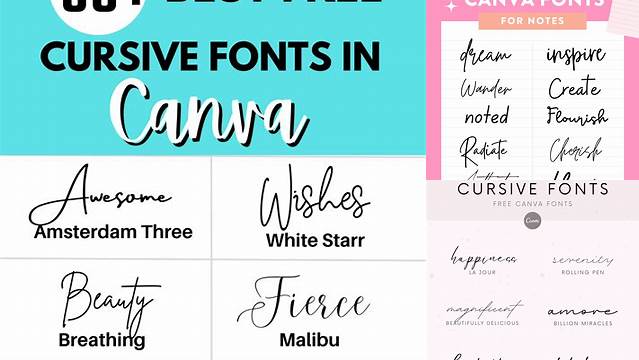
Top Free Cursive Fonts For Canva: Your Ultimate Guide
Hey guys! Ever wondered how to make your Canva designs pop with some seriously stylish fonts? Well, you're in luck! Today, we're diving headfirst into the world of best Canva cursive fonts free. Whether you're a seasoned designer or just starting out, finding the perfect cursive font can elevate your projects from meh to magnificent. We'll explore the cream of the crop, the fonts that'll make your designs sing, and most importantly, won't cost you a penny. So, buckle up, grab your virtual pens, and let's get creative! Finding the right font can be a game-changer. It can add personality, convey a specific mood, or simply make your text more readable. Cursive fonts, with their elegant and flowing style, are particularly effective at creating a sense of sophistication, romance, or even playfulness. And the best part? Canva has a fantastic selection of free cursive fonts just waiting to be discovered. This guide is your ticket to unlocking those hidden gems and mastering the art of typography in Canva. Get ready to transform your designs with some seriously stunning fonts!
The Allure of Cursive Fonts in Canva Designs
Alright, let's talk about why cursive fonts are so darn appealing, especially in the context of Canva designs. The charm of these fonts lies in their unique ability to add a personal touch and a sense of artistry that's hard to replicate with more basic typefaces. Best Canva cursive fonts free offer a level of visual interest that instantly elevates any project. Think about it: a simple invitation, a social media graphic, or even a presentation slide can be transformed with the right cursive font. It’s like adding a sprinkle of magic to your designs! Cursive fonts inherently evoke a feeling of elegance, sophistication, and sometimes even a touch of whimsy. They can be used to create a romantic vibe, add a sense of luxury, or simply make your text feel more handwritten and authentic. The flowing lines and interconnected letterforms of cursive fonts draw the eye and create a visual rhythm that's both pleasing and engaging. For designers of all levels, this is a fantastic way to add personality. Using cursive fonts effectively involves considering the overall tone. A delicate script might be perfect for a wedding invitation, while a bolder, more modern cursive could work wonders on a poster or a website banner. The key is to choose a font that complements your design's purpose and target audience. A well-chosen cursive font can transform a basic design into a work of art. In Canva, you can easily experiment with different fonts and styles to find the perfect match for your project. Don’t be afraid to play around with it! Embrace the variety and discover the power that these fonts hold. Selecting the best font is an important part of creating your design.
Why Cursive Fonts are Perfect for Branding
When it comes to branding, using best Canva cursive fonts free can be an absolute game-changer. These fonts have an innate ability to create a distinct brand identity. They add a level of personality and memorability that can set you apart from the competition. A well-chosen cursive font can communicate your brand's values, personality, and aesthetic preferences. For instance, a graceful, flowing script might be perfect for a brand that emphasizes luxury, elegance, or romance. On the other hand, a more modern and edgy cursive font could be ideal for a brand that wants to project a sense of creativity, innovation, or playfulness. Branding with cursive fonts isn't just about looks. It's about crafting a visual story that resonates with your target audience. It's about creating a connection between your brand and the people you want to reach. When selecting a cursive font for branding, make sure it aligns with your brand’s overall aesthetic and values. Consider your brand’s name, the industry you operate in, and the message you want to convey. A cursive font can be used in your logo, your website's headers, or even your social media graphics. The goal is to maintain a consistent visual identity that reflects your brand's unique character. You can use cursive fonts to create a lasting impression. Remember, branding is not just about the logo. It's about the whole experience that customers have with your brand. By using the right font, you can greatly contribute to that experience.
Decoding the Best Free Cursive Fonts in Canva
Alright, now for the main event: discovering the best Canva cursive fonts free that will take your designs to the next level. Canva offers a diverse selection of cursive fonts. These fonts are perfect for a wide range of design projects. Each font has its own unique personality, style, and character. Here's a breakdown of some of the top contenders that you should definitely check out. Here are some of the fonts that I like:
Dancing Script
Dancing Script is a classic choice. It offers a warm, friendly, and slightly casual aesthetic. It's great for adding a handwritten feel to your designs. Dancing Script is known for its readability and versatility, which makes it ideal for a wide range of projects, including invitations, posters, and social media graphics. The Dancing Script is a fantastic selection.
Great Vibes
Great Vibes is known for its elegant and flowing style. Great Vibes is perfect for adding a touch of sophistication to your designs. The font has a more formal feel. It's perfect for projects that need a touch of class, such as wedding invitations, greeting cards, and high-end branding materials. This font is definitely great vibes.
Allura
Allura is a versatile font with a more modern and stylish aesthetic. Allura is great for a variety of projects. Allura provides a beautiful appearance for any project. It has a great balance of elegance and readability, which makes it ideal for headlines, titles, and short text blocks. The allura font is one of the best.
Pacifico
Pacifico has a fun and playful vibe. It's perfect for projects that need a touch of personality and excitement. The font is inspired by surf culture and retro design. It's a great choice for anything from social media graphics to website headers. Pacifico is a creative font.
Caveat
Caveat is a fantastic font. This font is known for its readable and friendly style. Caveat is great for projects that need a touch of personality and easy readability. Caveat is a solid choice for anyone wanting a clean script.
How to Effectively Use Free Cursive Fonts in Canva
Using best Canva cursive fonts free effectively is crucial to ensuring your designs look polished, professional, and visually appealing. Knowing the right way to implement these fonts can completely transform your project. Here are some best practices to help you master the art of cursive typography. First things first, choose the right font. Not all cursive fonts are created equal. Consider the overall tone, style, and purpose of your design when making your selection. Ensure that the font complements the other elements of your design and aligns with your brand's personality. A font is a core element of a design. Avoid using cursive fonts for large blocks of text. Cursive fonts can be difficult to read, especially at small sizes. Save cursive fonts for headlines, titles, or short phrases. This will help maintain readability and avoid eye strain. Cursive fonts can work well with other font types. Pairing a cursive font with a clean, sans-serif font for body text creates a nice contrast and enhances readability. For example, use a cursive font for your title and a sans-serif font for your body text. Experiment with font sizes and spacing. Adjust the font size and letter spacing (tracking) to ensure your cursive font is both visually appealing and easy to read. Proper spacing can make all the difference in how your text appears. Avoid using too many different fonts in a single design. Stick to a maximum of two or three fonts. This helps maintain consistency and prevents your design from looking cluttered. Use cursive fonts strategically. Consider the context of your design. Is it an invitation, a social media post, or a website header? Choose a cursive font that fits the specific purpose of your design. It will help you create an attractive design. Always proofread your text carefully. Ensure that your text is free of spelling and grammatical errors. Nothing will detract from your design more than a typo in a cursive font.
Choosing the Right Font for Your Project
Choosing the perfect cursive font for your project is a crucial step. It determines the overall style and message of your design. To make an informed decision, consider these factors: start by defining your project's purpose and target audience. Ask yourself: what are you trying to achieve with your design? Who are you trying to reach? Then you can think about the project's overall style. Do you want a classic, modern, or playful look? Your font choice should align with the project's aesthetic. Assess the font's readability. Ensure that the font is easy to read. Especially when used in headlines, titles, or short text blocks. Pay attention to the font's personality. Does it evoke feelings of elegance, sophistication, or playfulness? Choose a font that matches the tone of your message. Consider the font's compatibility with other elements of your design. Ensure that the font works well with other fonts, colors, and images. Do your research and explore various font options. Look at font pairings and experiment with different combinations to find the perfect match. Make your design visually appealing. Don’t be afraid to test different fonts and see how they appear in your designs. Try to determine which fonts best convey your message. These are all things to keep in mind when you are finding the best font.
Combining Cursive Fonts with Other Typography Styles
Combining best Canva cursive fonts free with other typography styles is an art. It can help you create visually dynamic and engaging designs. The key is to strike a balance between contrast and harmony. Here's how to effectively blend cursive fonts with other styles: start by selecting a primary font for your headlines, titles, or key elements. Pair it with a contrasting secondary font for body text or supporting information. Choose a sans-serif font. A sans-serif font provides a clean, easy-to-read complement to a cursive font. This pairing creates a balance between elegance and readability. Consider using a serif font as an alternative to a sans-serif font. Use a serif font for body text. This can create a more classic and sophisticated look. Experiment with different font weights and styles. Use bold or italic variations of your fonts to add emphasis and visual interest. Maintain consistency. Use a consistent font pairing across all your design elements. This creates a cohesive look and feel. Experiment with different font sizes and spacing to create visual hierarchy. Use a larger size for your headlines, and a smaller size for your body text. This helps guide the viewer's eye. Don't be afraid to break the rules. If you feel it's right for your design, you can experiment with different combinations. Use colors strategically. Pair your fonts with contrasting colors to create a visually appealing design. Avoid using too many different fonts. Stick to a maximum of two or three fonts in a single design to prevent your design from appearing cluttered.
Pairing Cursive Fonts with Sans-Serif Fonts
Pairing best Canva cursive fonts free with sans-serif fonts is one of the most popular and effective combinations in graphic design. It's a pairing that's easy to get right. The contrast between the flowing lines of cursive fonts and the clean, simple shapes of sans-serif fonts creates a visually appealing balance. Here are some tips for perfecting this pairing: look for a sans-serif font that is clean and easy to read. Consider using a neutral sans-serif font, like Arial or Helvetica, for body text. Use a cursive font for your headlines, titles, and short text blocks. Use a sans-serif font for your body text, to ensure maximum readability. A good contrast between the two font types creates visual interest. Pay attention to the font weights. Make sure that the font weights are different from each other, so your headlines are clearly visible. It's best to use a heavier weight for headlines, and a lighter weight for body text. Experiment with different font sizes and spacing to create a visual hierarchy. Use a larger font size for headlines, and a smaller font size for body text. Make sure that your design is easy to scan. Don't use too many fonts. Use the two fonts that go with each other. Make sure there's consistency in your design. The goal is to maintain a balance between elegance, readability, and visual interest. Remember to choose a font pairing that complements your overall design. Use a great font for your design to be successful.
Mastering the Art of Canva Cursive Font Selection
Mastering the art of best Canva cursive fonts free selection is essential for any designer. To excel, consider these key tips: start by identifying your project's purpose and target audience. Determine the message you want to convey and the emotions you want to evoke. Explore the Canva font library. Canva offers an extensive range of fonts, including a wide variety of cursive fonts. Browse through the library and experiment with different options. Focus on readability. Ensure that the font is easy to read. Use cursive fonts for headlines, titles, or short text blocks. Maintain consistency. Maintain consistency in font styles, weights, and sizes. This will ensure that your design looks polished and professional. Experiment with different font pairings. Experiment with different combinations to find the perfect match. Don’t be afraid to try different things. Test your design. Always preview your design to see how the font looks in context. Fine-tune your design. Adjust the font size, spacing, and color to create a visually appealing design. Get feedback. Ask others for their opinions. This will help you to improve your designs. Keep up with the latest trends. Stay up-to-date with design trends and font styles to keep your designs looking fresh and relevant. Remember, selecting the right font is just one piece of the puzzle. Your ability to create visually stunning designs will depend on your creativity and attention to detail.
The Importance of Readability and Legibility
In the world of graphic design, especially when working with best Canva cursive fonts free, the importance of readability and legibility cannot be overstated. These two elements are essential to communicate your message effectively. Readability refers to how easily the text can be read. Legibility refers to the ability of the text to be easily distinguished. The key is to balance the font's aesthetic appeal with its functional purpose. Cursive fonts, with their flowing lines and decorative flourishes, can be visually appealing. However, they can sometimes compromise readability, especially at smaller sizes. To enhance readability, choose cursive fonts that are clear, concise, and easy to follow. Avoid fonts with overly elaborate or stylized letterforms. Ensure that there is enough space between letters and words. This will help make the text easier to read. Ensure the text is visible. Use font sizes that are appropriate for the context of your design. In addition to font selection, consider the design’s overall layout. Make sure that the text is properly aligned and spaced. Readability is about more than just choosing a font. Ensure that your text stands out against the background. Proper color choices and contrast can also contribute to readability. Choose fonts that are legible. Make sure that your text is easily distinguishable. Take note of the context of your design.
Canva Font Pairing: Cursive and Complementary Styles
Creating effective Canva designs often comes down to the perfect font pairing. With best Canva cursive fonts free, you can unlock a world of creative possibilities. Here's how to pair cursive fonts with complementary styles to enhance your designs: start by choosing a primary font. Choose a cursive font for headlines, titles, or key elements. Now, pair it with a secondary font that is complementary to the cursive font. A sans-serif font offers a clean, easy-to-read counterpoint to a cursive font. This combination offers a balance of elegance and readability. Another choice is to use a serif font. A serif font can provide a more classic and sophisticated look. Choose a cursive font that complements the overall style of your design. The key to a good font pairing is contrast. Choose fonts that are different from each other, but still look good together. To maintain consistency, use the same font pairing. Experiment with font weights, styles, and sizes to create visual interest. The goal is to create a design that is visually appealing and easy to read. When creating your design, consider your brand's personality, the message you want to convey, and the target audience. Your font pairings should enhance your design, while conveying the message you want to share. This approach is one of the best ways to enhance your designs.
Finding the Perfect Font Combination
Finding the perfect font combination is an essential part of creating stunning designs. With best Canva cursive fonts free, you have the power to mix and match styles. Here’s how to find that winning combination: understand the basics of font pairing. Choose fonts that are complementary, such as a cursive font paired with a sans-serif or serif font. Consider the overall tone and style of your design. Does your design need a classic, modern, or playful look? Use the Canva font library. Experiment with different font combinations. See how your selected fonts look together in a variety of design contexts. Pay attention to readability. Ensure that the combination is readable at different sizes and on different backgrounds. Create a visual hierarchy. Use different font sizes and weights to create a hierarchy that guides the viewer's eye. Maintain consistency. Once you have found a font pairing that you love, stick with it across your designs. Consider your brand. Create a brand identity that reflects your unique personality. Don't be afraid to experiment with different fonts. See what looks best for you. By following these guidelines, you can create designs that are not only visually stunning, but also easy to read and convey your message.
Avoiding Common Mistakes with Cursive Fonts in Canva
Even seasoned designers sometimes make mistakes. When using best Canva cursive fonts free, it's easy to fall into common traps. Here's how to avoid these pitfalls and ensure your designs are top-notch: avoid overusing cursive fonts. Cursive fonts are great for headlines, titles, and short phrases. However, they can be hard to read. Avoid using cursive fonts for large blocks of text. Choose readability over style. Ensure that your font is easily readable at all sizes. Overly elaborate or stylized fonts can be difficult to read. Make sure your font complements the other elements. The font should fit the overall style and message of your design. Don't be afraid to experiment with spacing. Adjust the letter spacing (tracking) to make the text more readable. Avoid using too many different fonts. Using too many fonts can make your design appear cluttered. Always proofread your text. Ensure that there are no spelling or grammatical errors. This is always important. Consider the context of your design. Make sure your font is suited for the occasion. Test your design on different devices. Ensure that your design looks good on all devices. Get feedback from others. Ask others for their opinions to improve your designs. By avoiding these common mistakes, you can create designs that are both visually appealing and effective. Doing this will allow you to create the perfect design.
Maintaining Readability and Legibility in Cursive Designs
Maintaining readability and legibility is essential for effective design. Here’s how to do it when using best Canva cursive fonts free: choose cursive fonts that are easy to read. Avoid fonts with overly elaborate or stylized letterforms. These types of fonts are hard to read. Ensure that there is enough space between letters and words. This enhances readability. Use appropriate font sizes. Make sure that your font size is suitable for the context of your design. Keep your text short. Use your cursive font for headlines, titles, or short phrases. Avoid large blocks of text. Choose a background that complements your text. Ensure that your text stands out against the background. Use color and contrast strategically. Proper use of color and contrast can improve readability. Use a clear font for the body text. Pair your cursive font with a sans-serif font for body text. Test your design. Always preview your design to ensure that your text is legible. Don't be afraid to ask for feedback from others. Ask others for their opinions. This can help you identify issues and improve your design. Always keep readability and legibility in mind. It's the key to a successful design.
Creative Canva Cursive Font Applications and Ideas
Now that you know the basics of best Canva cursive fonts free, let’s get creative! Here are some ideas and applications to inspire your designs: add a personal touch. Use a cursive font for your invitations. The cursive font will add a sense of elegance. Create stunning social media graphics. Use a cursive font for quotes, headlines, and call-to-actions. Design beautiful branding materials. Use a cursive font for logos, website headers, and business cards. Design creative posters and flyers. Use a cursive font for titles and headlines to grab attention. Design unique greeting cards. Use a cursive font for your messages to add personality. Design wedding stationery. Use a cursive font to make a romantic and elegant design. Make custom t-shirt designs. Use a cursive font for slogans or quotes. Design eye-catching presentations. Use a cursive font for titles and headings to capture your audience's attention. Design your designs in creative ways. Experiment with different font sizes, spacing, and colors. Play with different elements. Try different backgrounds to make a unique design. Don’t be afraid to explore and experiment. You can create endless designs. With some creativity, you can create stunning designs.
Cursive Fonts for Social Media and Branding
Social media and branding go hand in hand, and the right best Canva cursive fonts free can be a game-changer for your online presence. They can significantly influence how your audience perceives your brand. Here are some tips: consider your brand's identity. Choose a cursive font that reflects your brand’s personality. Use cursive fonts for your logo and brand identity to add a unique personality. Highlight key messages. Use a cursive font for your quotes, headlines, and call-to-actions. Create visually appealing graphics. Experiment with different font sizes, spacing, and colors to create eye-catching designs. Ensure readability. Make sure your text is easily read on all devices. Maintain consistency. Use a consistent font style across all your social media platforms. Choose a cursive font. Don't be afraid to play with different styles. Experiment with different fonts. Experiment to see what looks best for you. Consider your brand's tone. Choose a font that matches the message that you want to share. Remember, your choice of font reflects your brand.
Advanced Tips and Tricks for Canva Cursive Font Users
Alright, let’s level up your skills with some advanced tips and tricks. Mastering best Canva cursive fonts free goes beyond just picking a font. Here's how to take your designs to the next level: experiment with font pairings. Try pairing your cursive font with different font combinations to achieve the desired style and effect. You can experiment with this. Adjust the letter spacing and kerning. Adjust the spacing between your letters for visual appeal. Customize your text effects. Use Canva's text effects to add shadows, outlines, and other effects. Get creative with colors. Experiment with different colors to enhance your design. Use gradients. Use gradients to create visual interest. Add elements to your design. Add graphic elements such as shapes or lines. Consider your audience. Make sure your design is for your audience. Learn about design principles. Understanding design principles can improve your designs. Look for inspiration. Look at other designs for inspiration. Learn and grow. Keep learning to improve your designs. By following these tips, you'll be able to create professional designs.
Optimizing Your Designs for Mobile and Web
Optimizing your designs for mobile and web is very important. When using best Canva cursive fonts free, keep these tips in mind: choose readable fonts. Make sure the font is easy to read on all devices. Use a larger font size. It is best to increase the font size on mobile devices. Make sure that the font size is appropriate for the screen size. Use appropriate spacing. Add space between letters, words, and lines. Use clear backgrounds. Ensure your text stands out against the background. Test your design. Make sure your design looks good on different devices and browsers. Test your design on different devices. Ensure that your design looks good on all devices. Optimize your images. Use images that are optimized for web use. Keep your design simple. Don't overload your design with too many elements. Keep your text simple. Try not to have long text. Ensure your design is responsive. Make sure your design is adaptable to different screen sizes. By following these tips, you'll be able to create designs that look great on all devices.
Troubleshooting Common Cursive Font Issues in Canva
Even the best designers run into issues. Here’s how to troubleshoot common problems when using best Canva cursive fonts free: readability issues. Choose cursive fonts that are easy to read. If a font isn't readable, try another one. Spacing issues. Adjust the letter spacing and line spacing for readability. Alignment issues. Make sure the text is properly aligned. Compatibility issues. Ensure that your font works well with other elements. Ensure that all elements are compatible. Design conflicts. Resolve any design conflicts. Color issues. Ensure your text contrasts with the background. The color should stand out. Scaling issues. Adjust your font size. The font should fit on the screen. File format issues. If you have an issue with a file format, try another one. Compatibility issues. Ensure your font is compatible with other design elements. Ensure your design elements go together. By resolving these issues, you'll be able to improve your designs.
Addressing Readability Challenges with Cursive Fonts
Readability is critical for a successful design. When using best Canva cursive fonts free, here’s how to tackle readability challenges: choose legible fonts. Focus on clarity and legibility. Avoid overly stylized fonts. Use appropriate font sizes. Make sure that the font size is suitable for the context of your design. Adjust letter spacing and kerning. This improves the readability. Choose clear background colors. Choose backgrounds that complement your text. Test your design on different devices. Make sure your design is readable on all devices. Limit text. Use your cursive font for headlines and short phrases. Make sure that your design is easy to read. By taking these steps, you can make your design easier to read.
Staying Updated with Canva Cursive Font Trends
Staying updated with the latest trends can keep your designs fresh. Here's how to keep your designs modern with best Canva cursive fonts free: follow design blogs. Stay updated with the latest design trends. Follow design influencers. Get inspired by different design styles. Follow Canva's updates. Keep up with Canva's new font releases. Experiment with new fonts. Try out different fonts. Explore font pairings. Experiment to see what goes well together. Check out font resources. Look at font resources for new fonts. Update your style. Keep up with the current style. By following these tips, your designs will always stay up to date.
Embracing Modern Cursive Font Styles and Techniques
Embracing modern cursive font styles and techniques can significantly enhance your designs. Here’s how to stay current: stay on top of the trends. Stay up-to-date with the latest font styles. Experiment with different styles. Try different styles. Be familiar with different combinations. Choose fonts that complement each other. Use color. Explore colors. Use color to your advantage. Use gradients. Use gradients to add visual interest. Consider your audience. Make sure your font matches the message you want to share. Use negative space effectively. Combine styles. Don't be afraid to mix styles. Keep up with what's new. Stay in the loop with what's new. By following these steps, your designs will be on point.